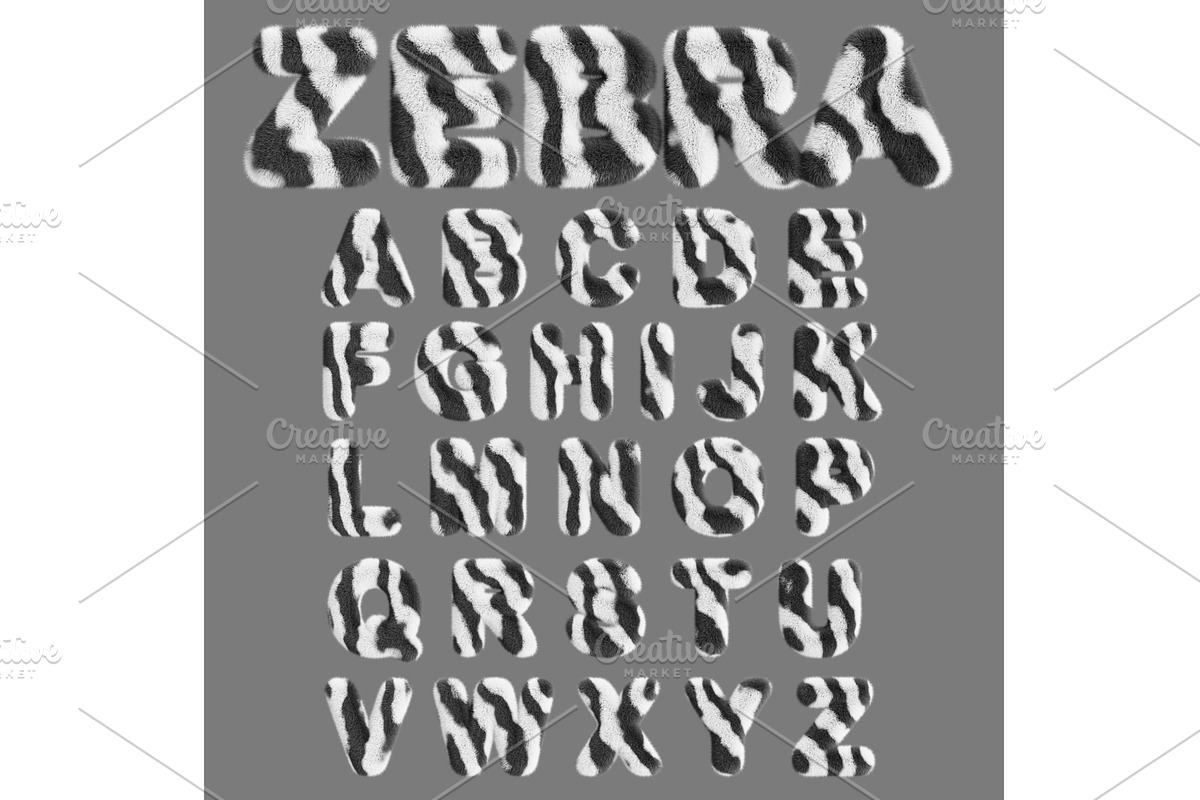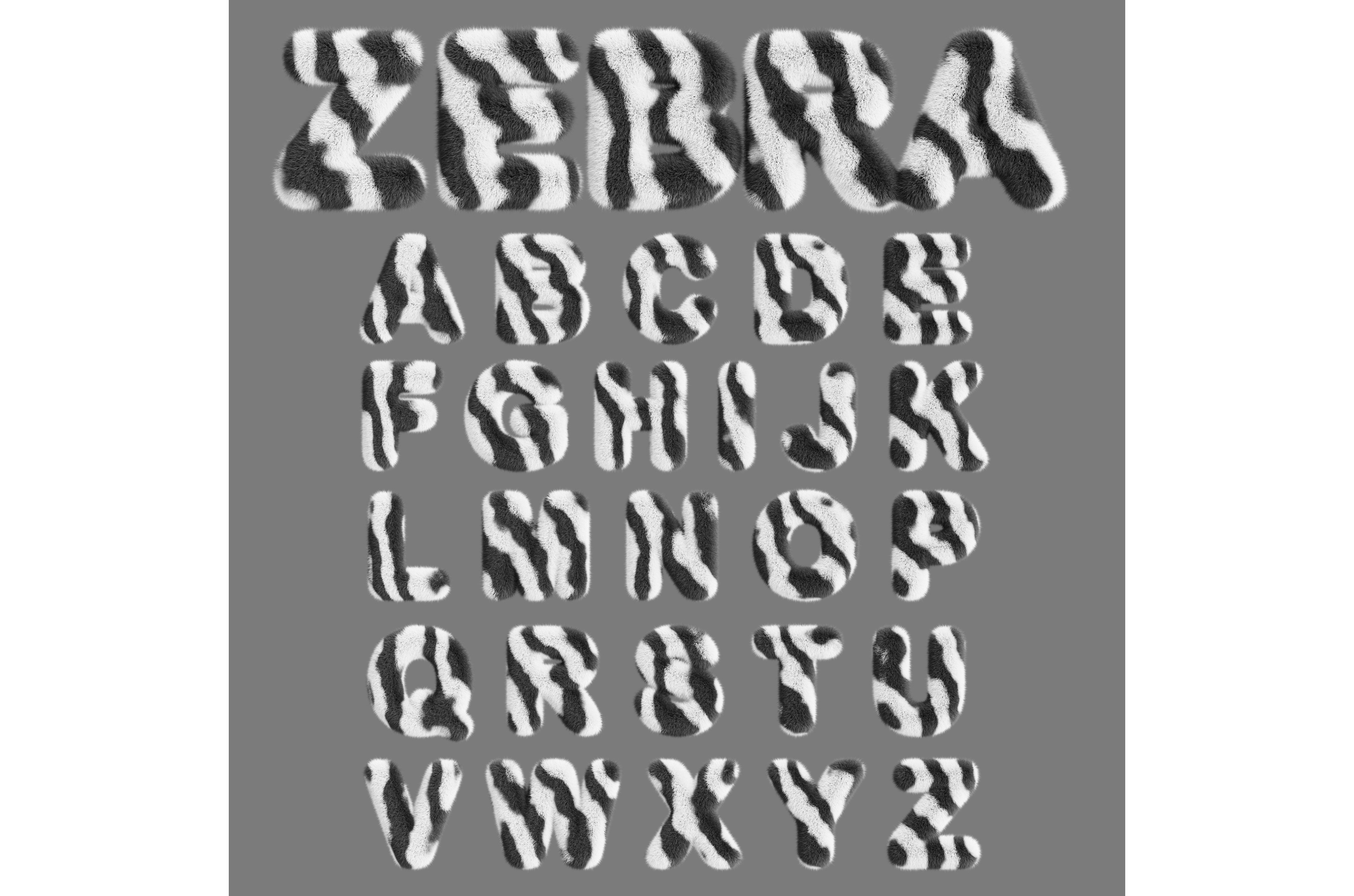
Zebra alphabet, fluffy font letters
Zebra alphabet, fluffy font letters with african wild animal skin print. English abc with fur striped pattern for kids. Safari type with white black hairy texture, isolated render set. 3D Illustration